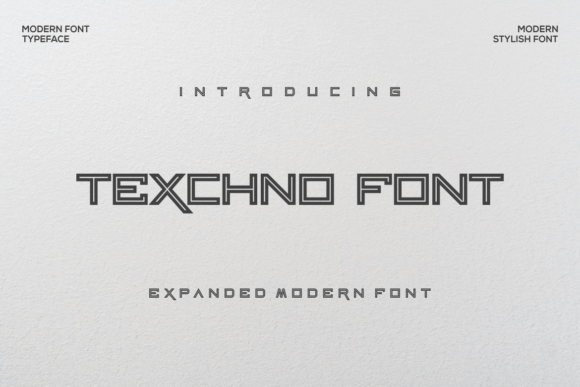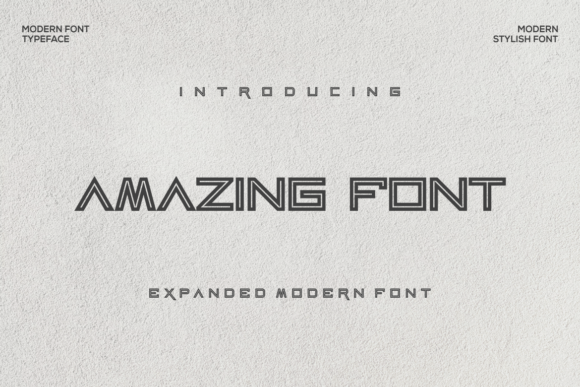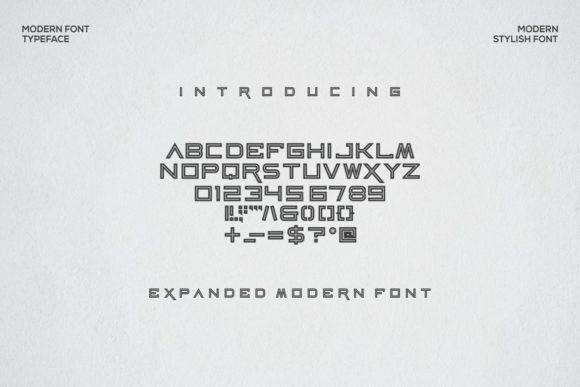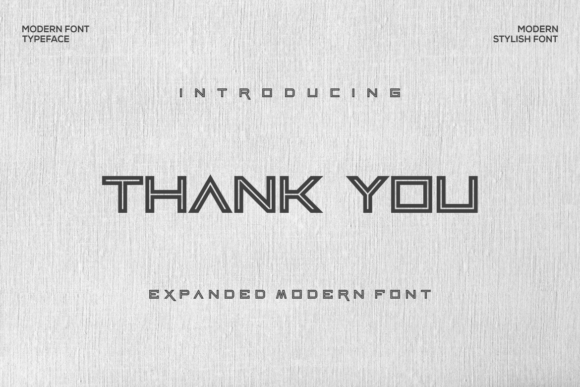
Introducing Genrok Font: The Modern Display Font for Bold Designs
In the world of design, a font can make or break a project’s visual identity. That’s why we’re excited to introduce Genrok Font, a modern display font that’s perfect for designers and crafters looking to add a touch of boldness and authenticity to their work. In this article, we’ll dive into the features and benefits of Genrok Font, and explore how it can elevate your branding projects, logos, t-shirt printing, and creative products.
What is Genrok Font?
Genrok Font is a bold and authentic display font designed to make a statement. Its modern aesthetic is perfect for designers who want to add a touch of sophistication and edge to their work. Whether you’re creating a logo, t-shirt design, or social media graphic, Genrok Font is the perfect choice for projects that require a bold and eye-catching font.
Key Features of Genrok Font
- Bold and Authentic: Genrok Font is designed to make a statement. Its bold and authentic style is perfect for designers who want to add a touch of confidence and sophistication to their work.
- Modern Aesthetic: Genrok Font features a modern aesthetic that’s perfect for contemporary designs. Its clean lines and sleek curves make it ideal for projects that require a fresh and modern look.
- Versatile: Genrok Font is versatile and can be used in a variety of contexts, from logos and branding to t-shirt printing and creative products.
- Easily Readable: Despite its bold style, Genrok Font is easily readable, making it perfect for designs that require a clear and concise message.
Benefits of Using Genrok Font
So, why choose Genrok Font for your design projects? Here are just a few benefits of using this amazing font:
- Stand Out from the Crowd: Genrok Font is designed to make a statement. Its bold and authentic style ensures that your designs will stand out from the crowd and grab attention.
- Perfect for Branding: Genrok Font is perfect for branding projects, including logos, business cards, and letterheads. Its modern aesthetic and bold style make it ideal for companies that want to make a strong impression.
- Time-Saving: With Genrok Font, you can save time and effort on your design projects. Its bold and authentic style eliminates the need for extensive design work, allowing you to focus on other aspects of your project.
In conclusion, Genrok Font is a modern display font that’s perfect for designers and crafters looking to add a touch of boldness and authenticity to their work. Its key features, including its bold and authentic style, modern aesthetic, versatility, and readability, make it an ideal choice for a variety of design projects. With its numerous benefits, including standing out from the crowd, perfect for branding, easy to use, and time-saving, Genrok Font is a must-have font for any designer or crafter.